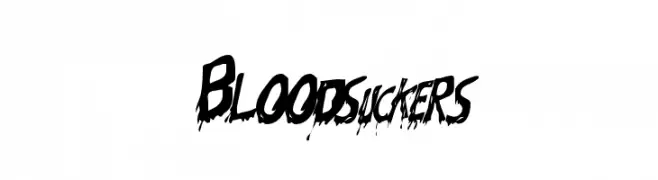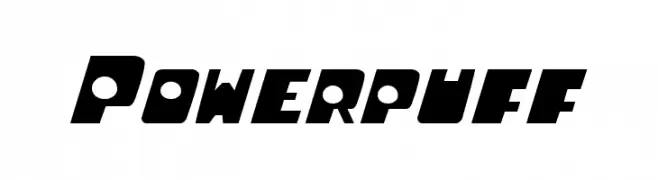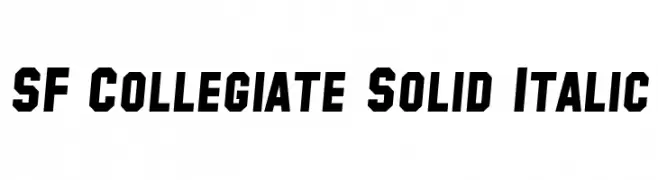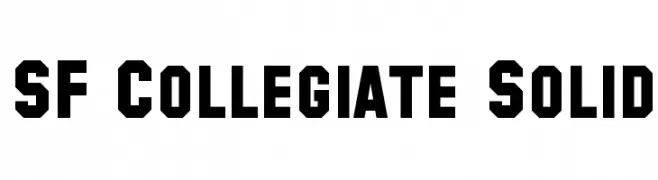
A bold, playful font with cartoonish elements and unique character designs.
A bold, horror-themed font with dripping, jagged letters.
A bold, italic collegiate font with solid, angular letterforms.
Bold, italicized font with a collegiate, athletic style.
Bold, blocky collegiate-style font with a strong geometric structure.
A horror-themed font with jagged, distressed characters for a chaotic look.